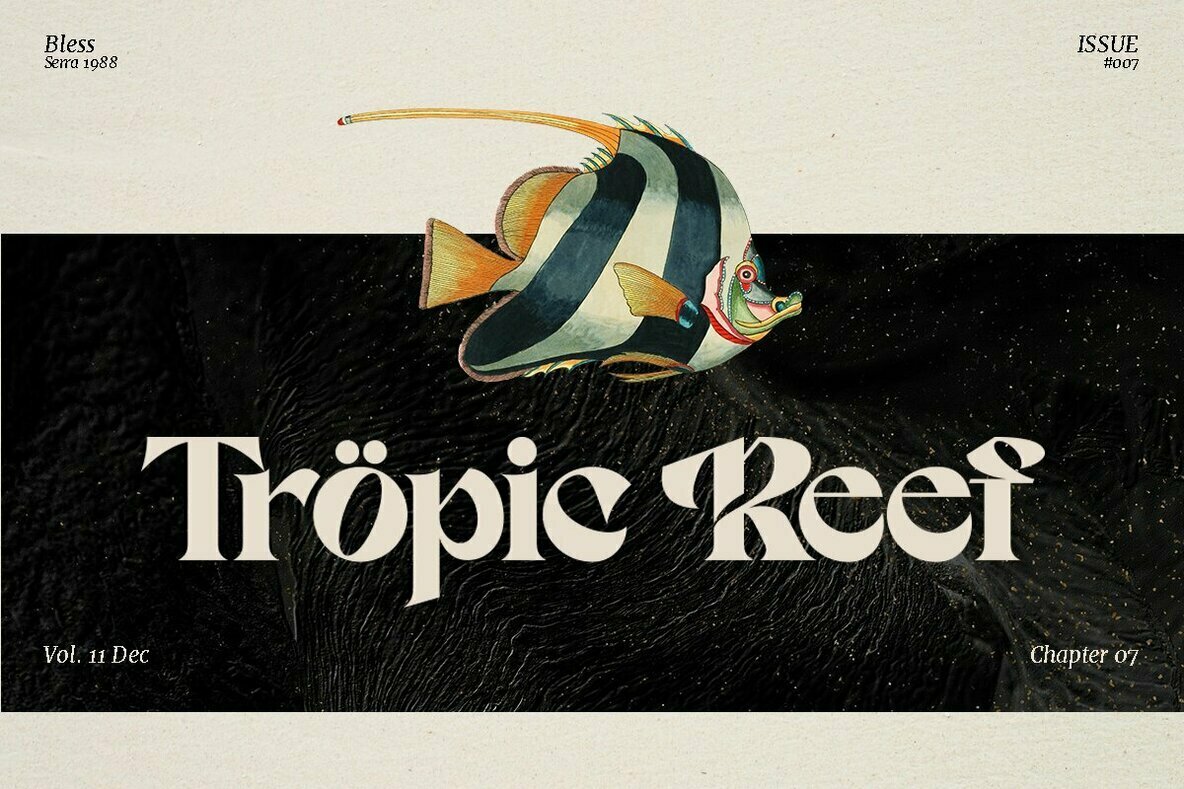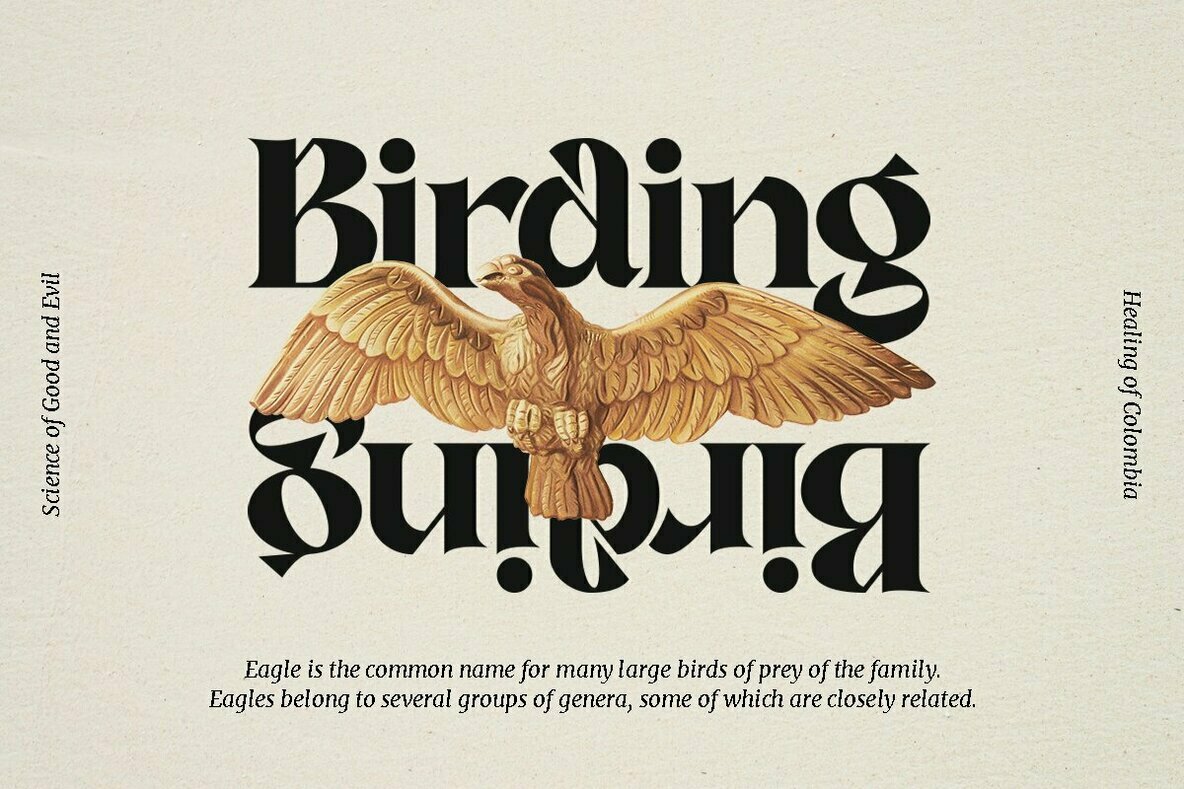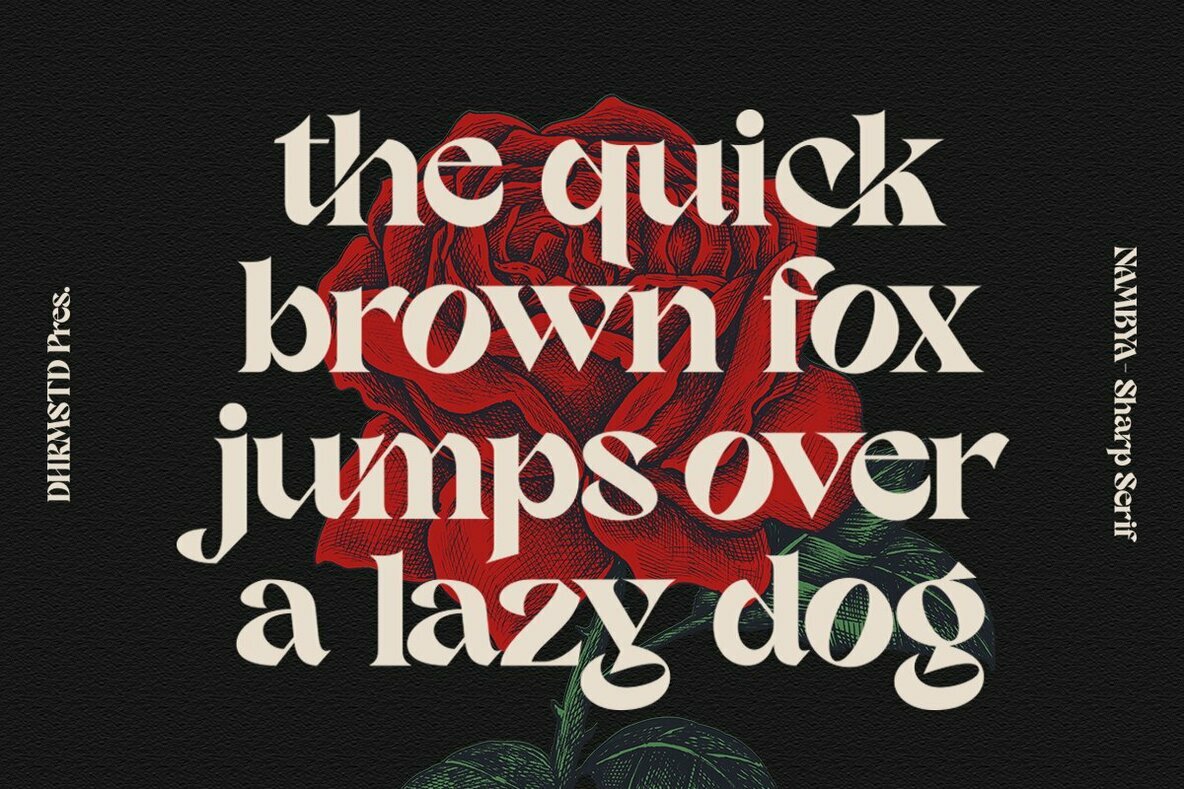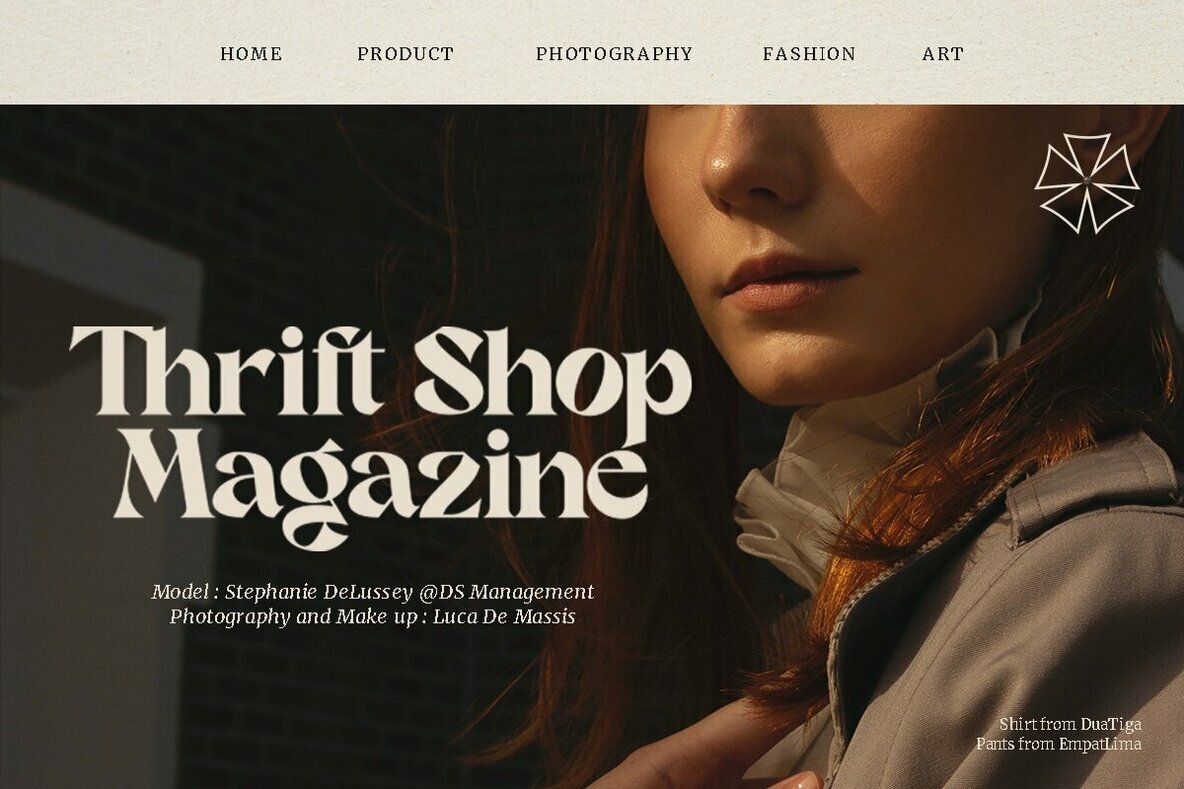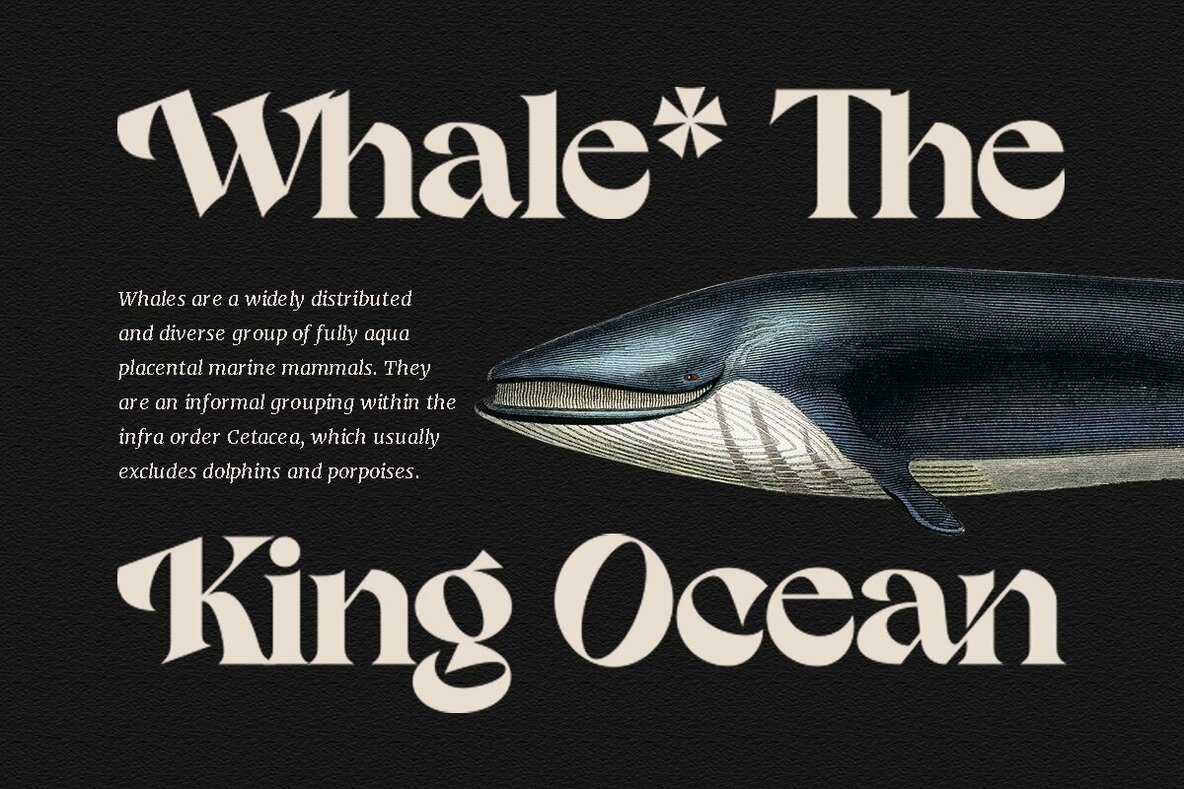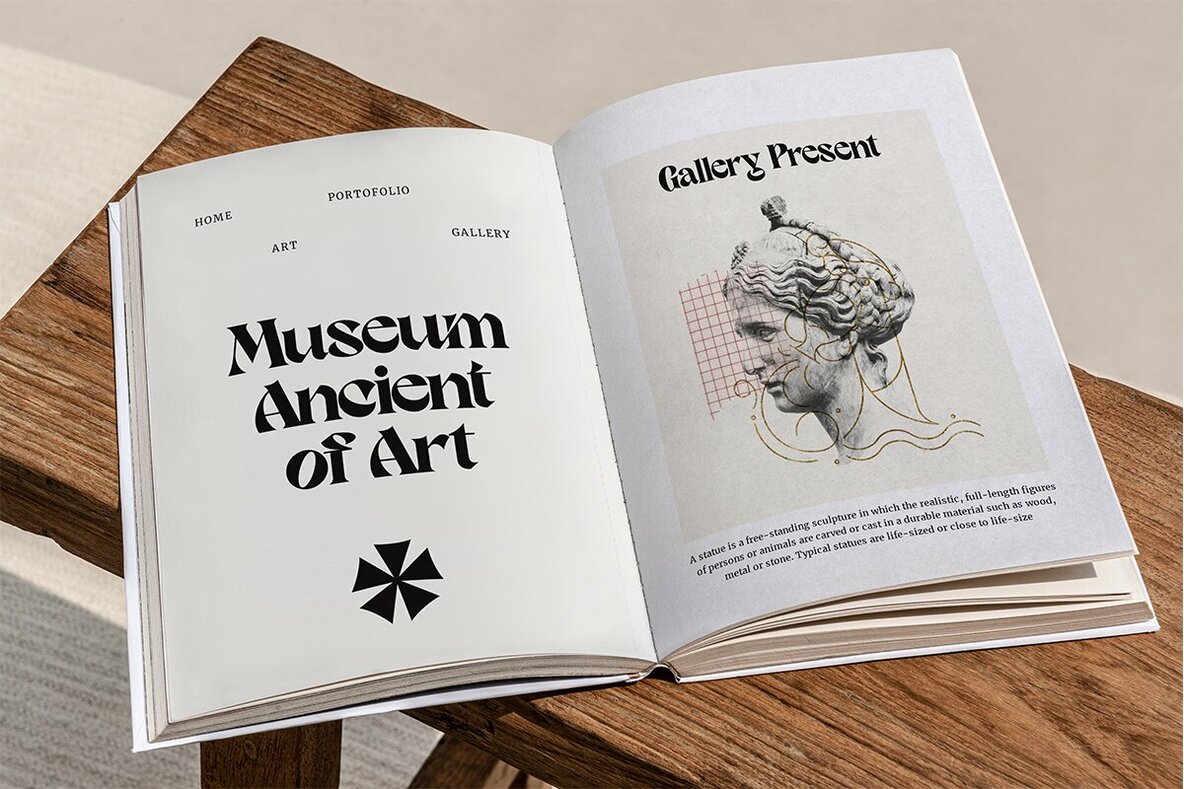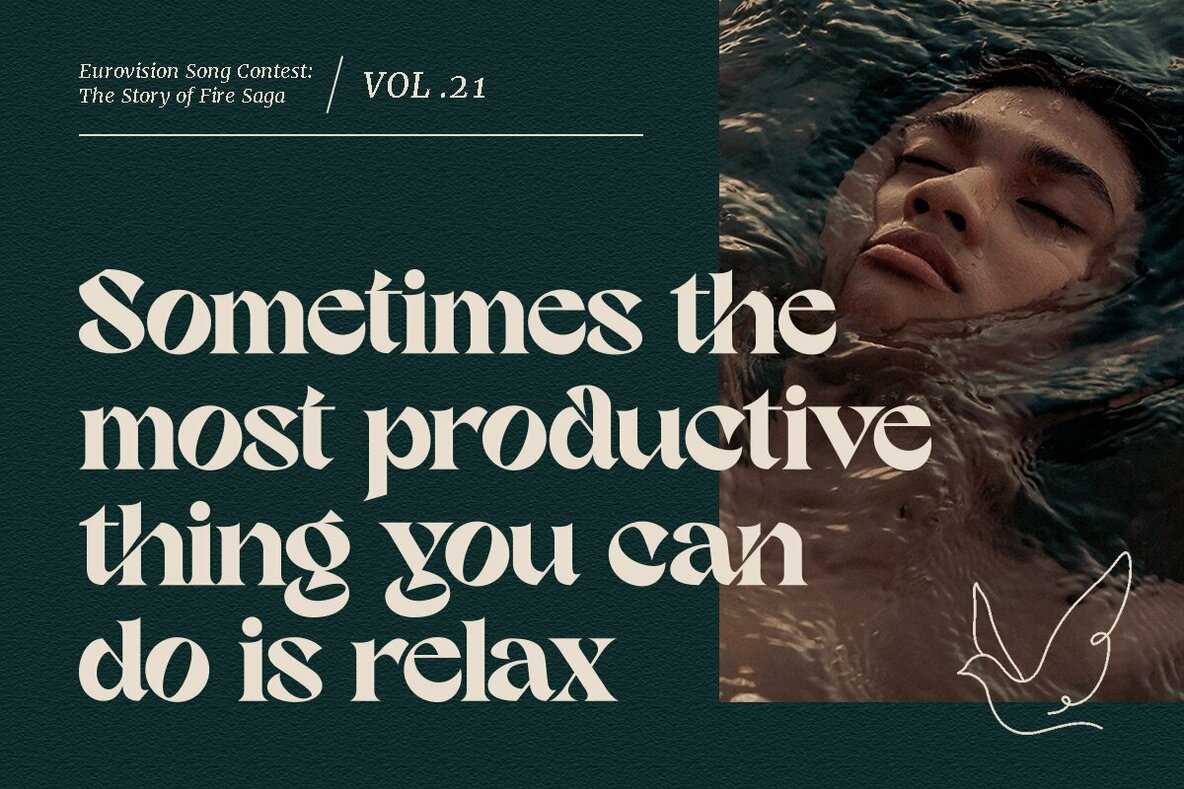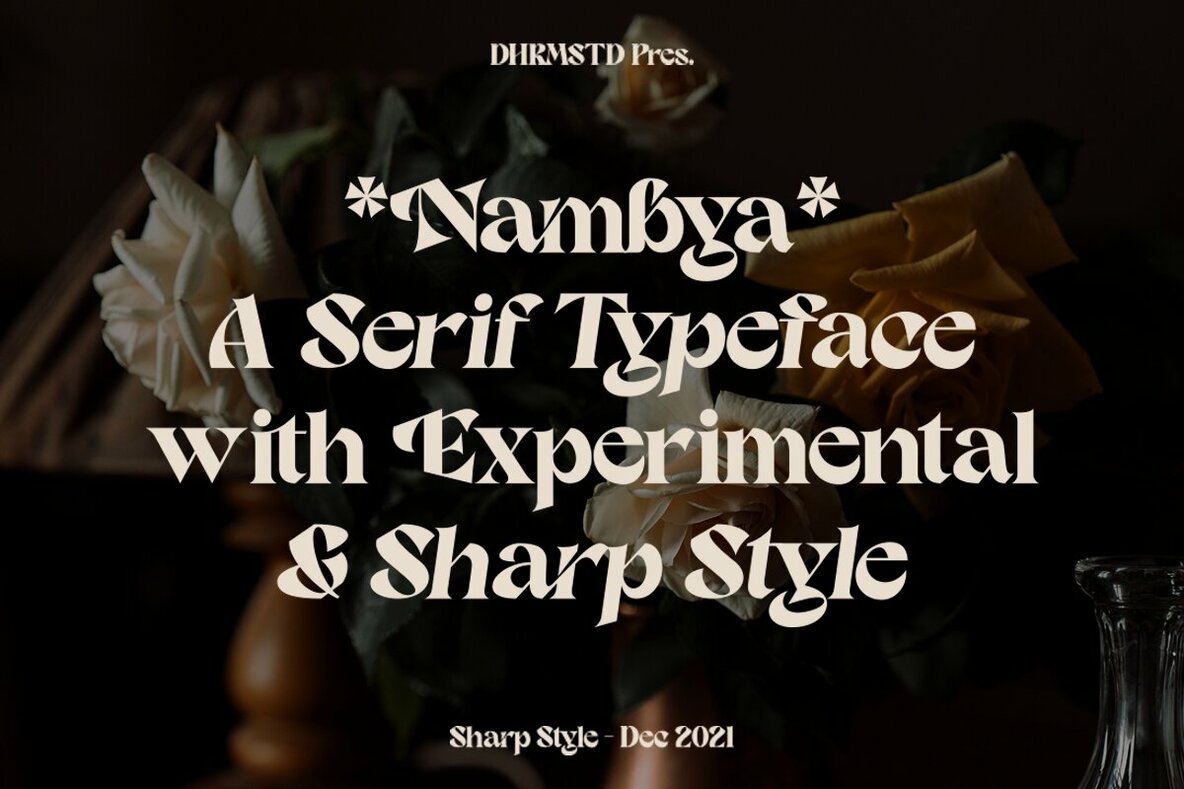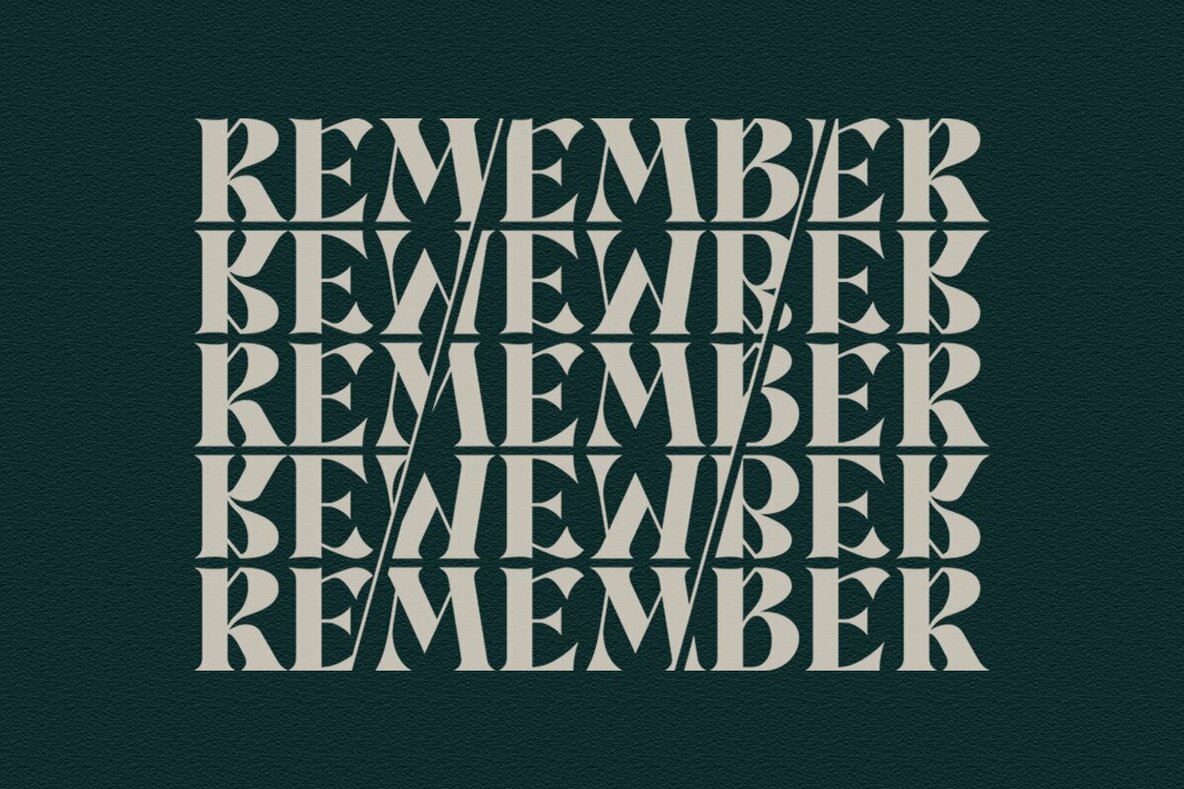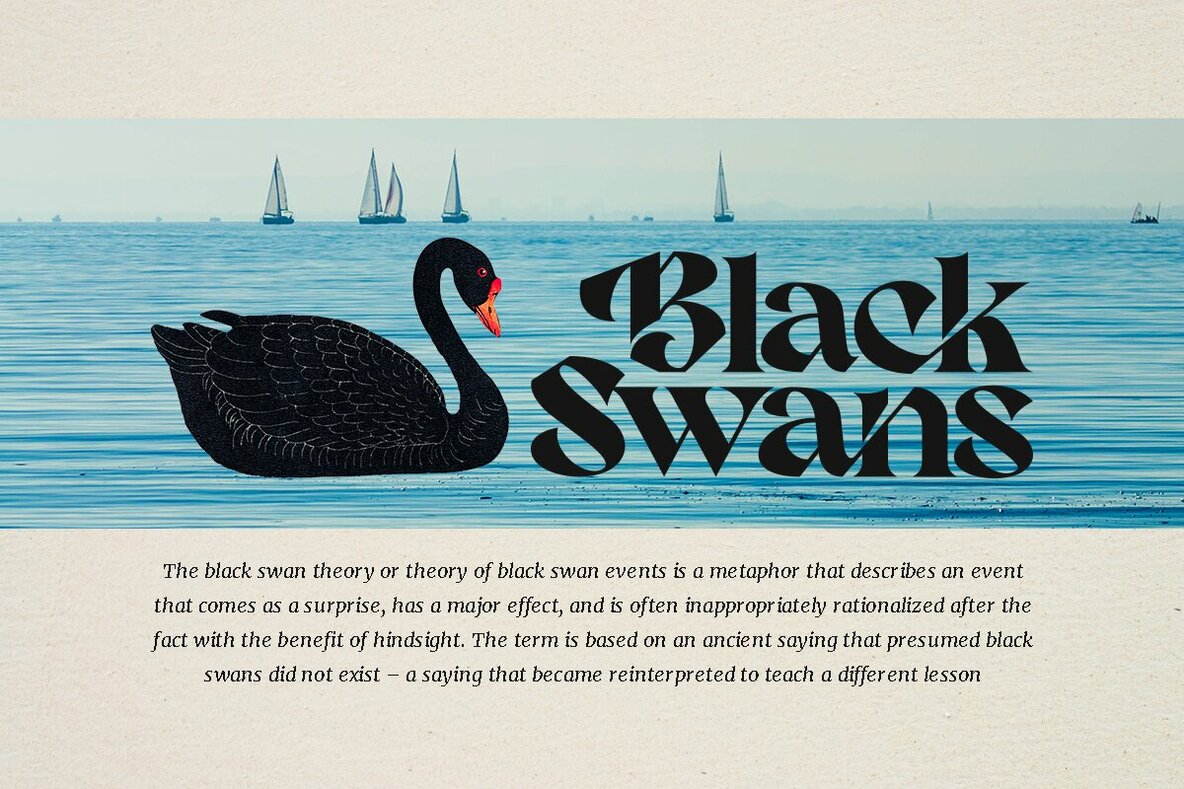
Nambya 1
A serif typeface with an experimental and sharp style. Nambya is inspired by timeless packaging from a forgotten era. It has a beautiful range of stylistic alternates with unique characters.